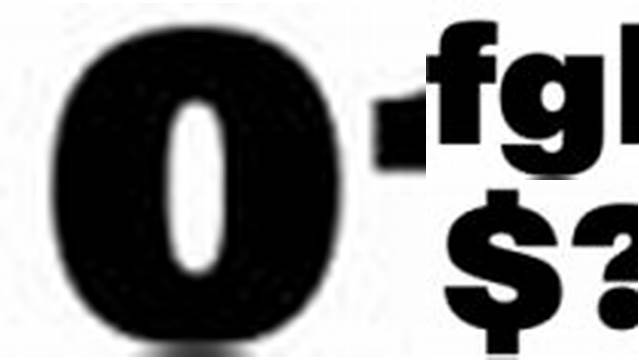
Hey guys, are you on the hunt for the Sequel Geo Max font? Well, you've come to the right place! This comprehensive guide will walk you through everything you need to know about the Sequel Geo Max font, including how to snag it for free (yes, you read that right!), its various uses, and even some cool alternatives if you're looking to spice things up. Buckle up, because we're about to dive deep into the world of typography and uncover all the secrets of the Sequel Geo Max font.
1. What is the Sequel Geo Max Font?
Alright, let's start with the basics. The Sequel Geo Max font is a modern, sans-serif typeface that boasts a clean, geometric design. Its sleek lines and balanced proportions make it incredibly versatile, suitable for a wide range of design projects. This font family, as you might expect, comes in various weights and styles. This allows you to add depth and variation to your designs. Whether you're working on a website, a poster, or even a mobile app, the Sequel Geo Max font can add a touch of sophistication and readability. The beauty of the Sequel Geo Max font lies in its simplicity. It doesn't try to be overly fancy or flamboyant, but instead, it focuses on clarity and elegance. This makes it a fantastic choice for projects where readability is paramount. This also ensures the design can capture the audience's attention. So, if you're looking for a font that's both stylish and functional, the Sequel Geo Max font might just be your new best friend. Remember that picking the right font is one of the most important parts of a successful design! So, you will need to know how to use the Sequel Geo Max font! Understanding its features and applications is the key to enhancing your design projects.
1.1. The Design Philosophy Behind Sequel Geo Max
The design philosophy behind the Sequel Geo Max font is all about minimalism and functionality. It's a font that's been crafted with the modern designer in mind, focusing on clean lines, geometric shapes, and excellent readability. The creators of the font clearly understood the importance of a versatile typeface. The Sequel Geo Max font can adapt to a wide array of design needs. Its design philosophy is rooted in the principles of modernism, emphasizing clarity and simplicity above all else. This means the font has been carefully designed to be easily readable, even at smaller sizes, which is super important for website design and mobile applications. The geometric shapes give it a contemporary edge, making it feel fresh and relevant. This makes it perfect for projects that want to convey a sense of modernity and sophistication. By stripping away unnecessary flourishes, the Sequel Geo Max font ensures that your message is the main focus, not the font itself. This allows your content to shine through, which makes it perfect for all kinds of project. So, the Sequel Geo Max font is not just a font; it is a design statement, reflecting the values of clarity, functionality, and modern aesthetics.
1.2. Key Features and Characteristics of the Font
Let's take a closer look at what makes the Sequel Geo Max font tick. One of its key characteristics is its excellent legibility. The font's clean, open letterforms make it easy to read, whether you're using it for headlines or body text. This is especially important for web design, where users often scan content quickly. Another standout feature is its versatility. The Sequel Geo Max font comes in a variety of weights and styles, allowing you to create a cohesive and dynamic design. From light and airy to bold and impactful, you'll find a weight that fits your needs. Furthermore, the geometric design adds a touch of modernity and sophistication to any project. It's a font that can instantly elevate the look and feel of your designs. The Sequel Geo Max font also tends to have a neutral tone. This means it doesn’t lean too heavily in any particular direction, making it suitable for a wide range of industries and styles. Overall, the Sequel Geo Max font is a workhorse font. It's a reliable and stylish choice for anyone looking to make a statement with their typography.